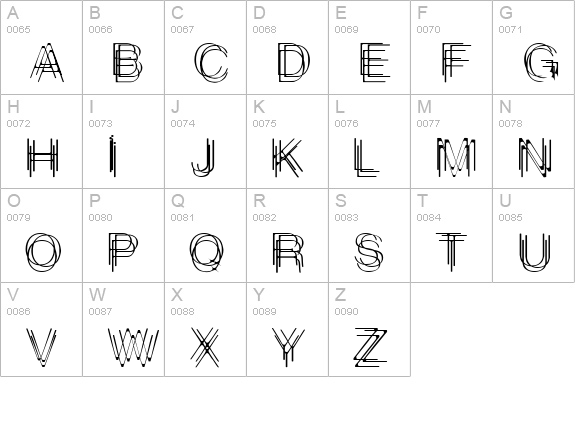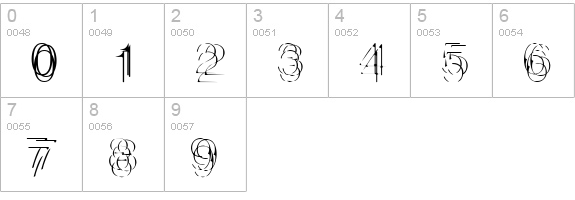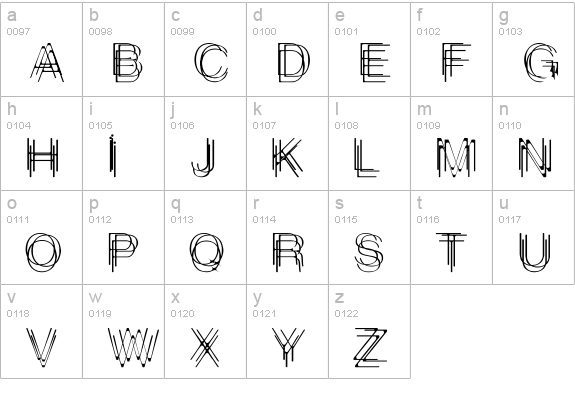
ThinMan-Drunk Font Details
Introducing ThinMan-Drunk, a boldly captivating font that effortlessly combines elegance with a whimsical touch. This unique typeface is sure to make a statement with its slender and slightly slanted letterforms, creating a distinctive visual presence that is both sophisticated and playful. ThinMan-Drunk is the perfect choice for those seeking a font that stands out from the crowd. Its distinctive characters exude a sense of confidence and flair, making it an ideal choice for branding projects, logo designs, headlines, and eye-catching displays. With its charmingly tipsy appearance, ThinMan-Drunk adds a touch of lightheartedness to any design. Its carefully crafted curves and angles give the letters a dynamic and lively feel, capturing attention and sparking curiosity. One of the best aspects of ThinMan-Drunk is that it is freely available to download at FontsMarket.com. This means that designers, creatives, and enthusiasts alike can easily access this remarkable font without any cost. The availability of this font for free allows for endless possibilities and encourages experimentation, enabling users to bring their imaginative visions to life without any limitations. Whether you are working on a personal project or a professional endeavor, ThinMan-Drunk is certain to elevate your design to new heights. Its versatility and charm make it suitable for a wide range of applications, from invitations and posters to packaging and social media graphics. Get your hands on ThinMan-Drunk today and experience the joy of freely creating captivating designs that leave a lasting impression. Download it now at FontsMarket.com and unlock the boundless potential that this remarkable font holds. Let ThinMan-Drunk be your creative companion on your journey to design excellence.